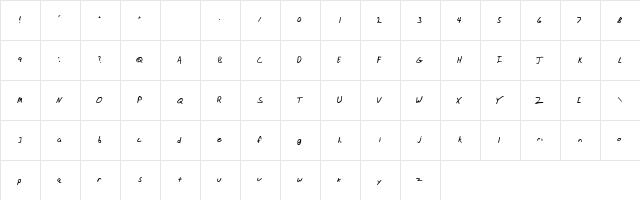
JHand Regular
| Foundry | Bionic Type |
| Designer | Swat Kat |
Design Context for JHand Typeface
JHand flows with the natural rhythm of handwritten lettering, making it ideal for designs that call for warmth and personal expression.
Font Pairing: Combine JHand with a simple geometric sans for maximum contrast — the tension between flowing curves and clean structure is a classic typographic pairing.
Pro Tip: Pair JHand with a clean sans-serif for supporting text. The contrast between fluid script and geometric structure creates an elegant typographic hierarchy.